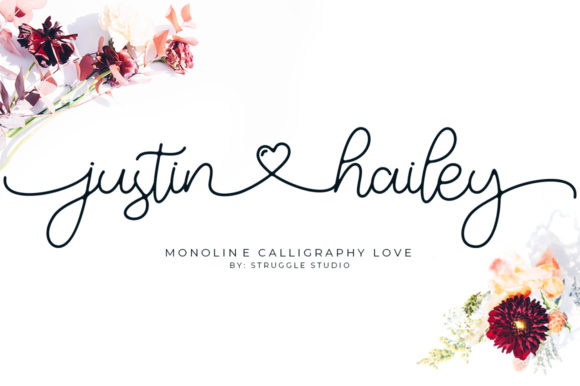
Justin Hailey is an incredibly distinct, delicate and timeless handwritten font. It looks stunning on wedding invitations, thank you cards, quotes, greeting cards, logos, business cards and every other design which needs a handwritten touch.